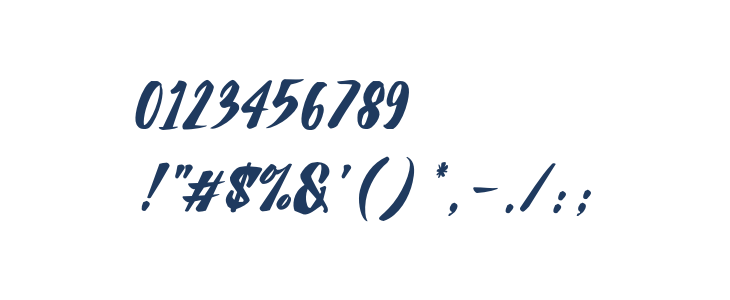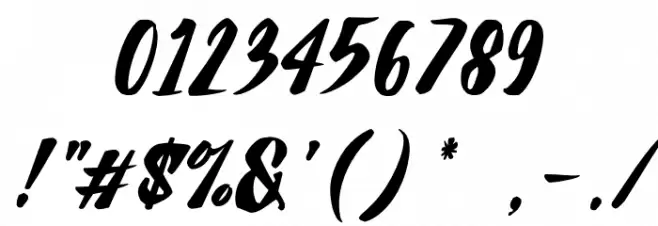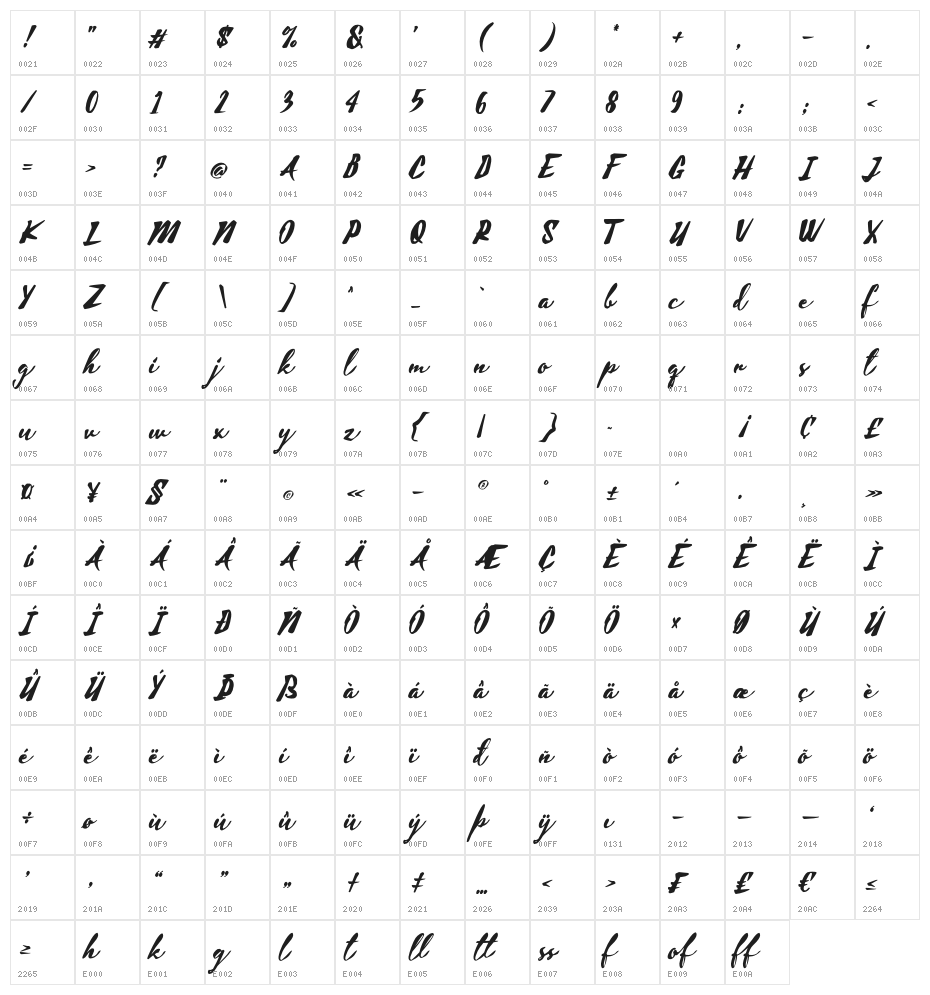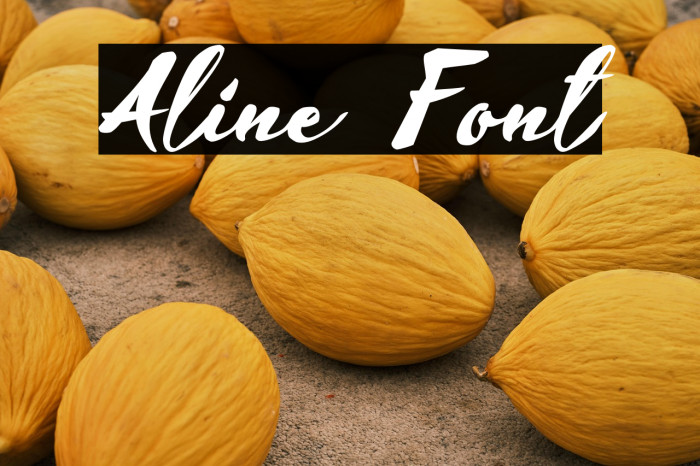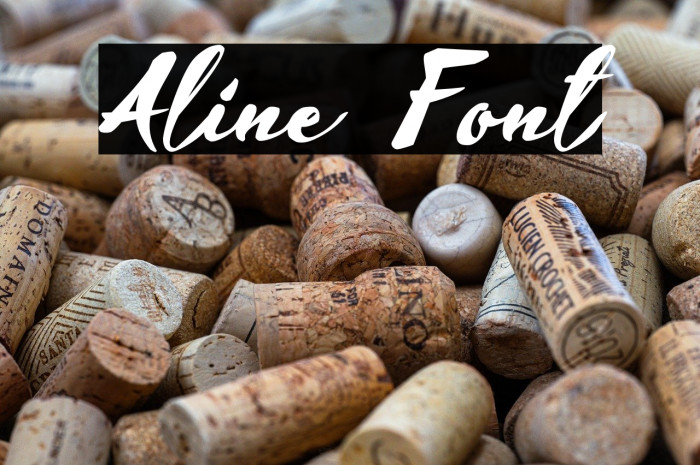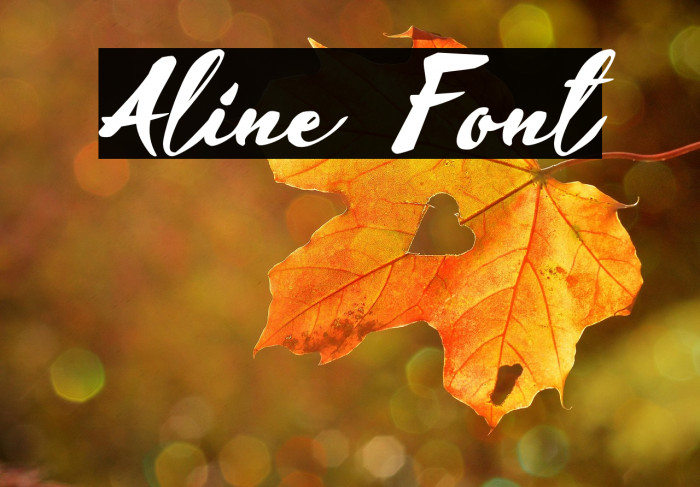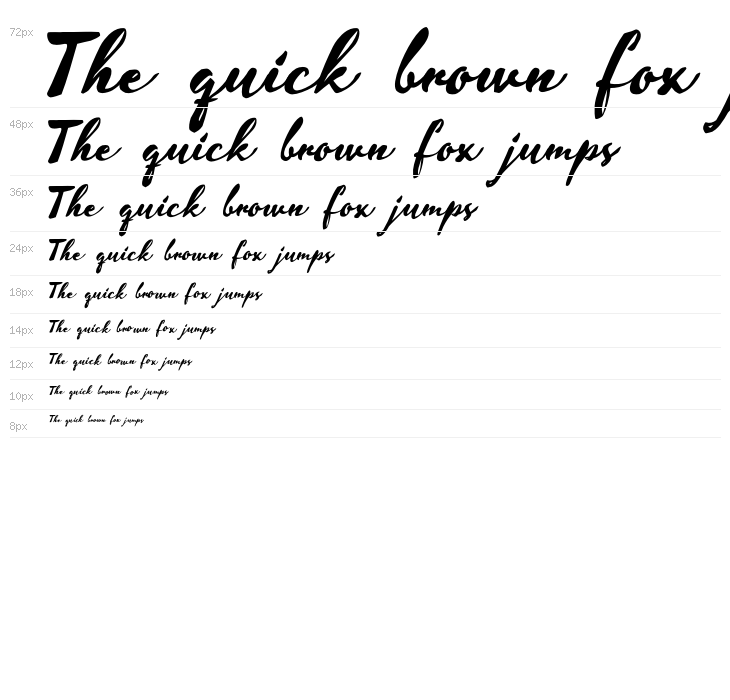
Aline Font
Aline Description
This font features a bold and dynamic script style, characterized by its fluid and expressive strokes. The uppercase letters are particularly striking, with a strong presence and a sense of movement. The lowercase letters maintain a consistent flow, adding elegance and continuity to the text. Numbers and special characters are designed to complement the overall aesthetic, ensuring versatility across various applications. The font's boldness and unique style make it suitable for attention-grabbing designs.